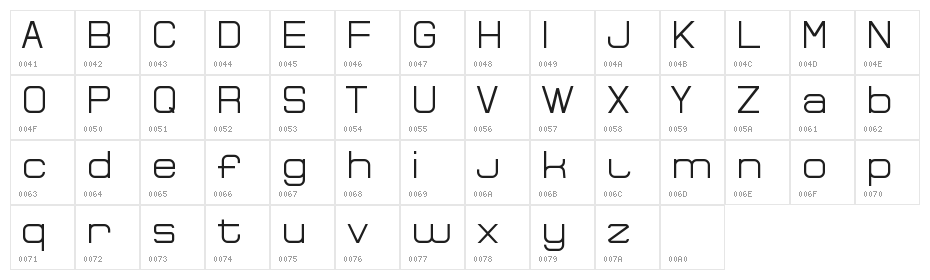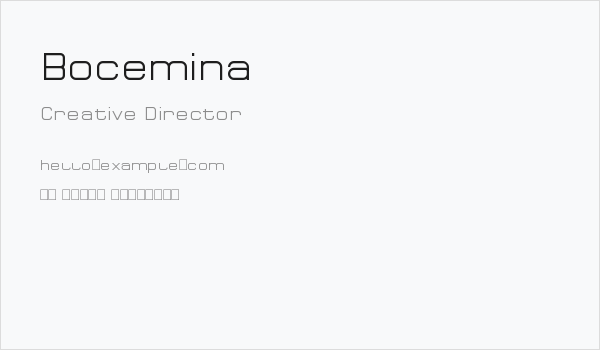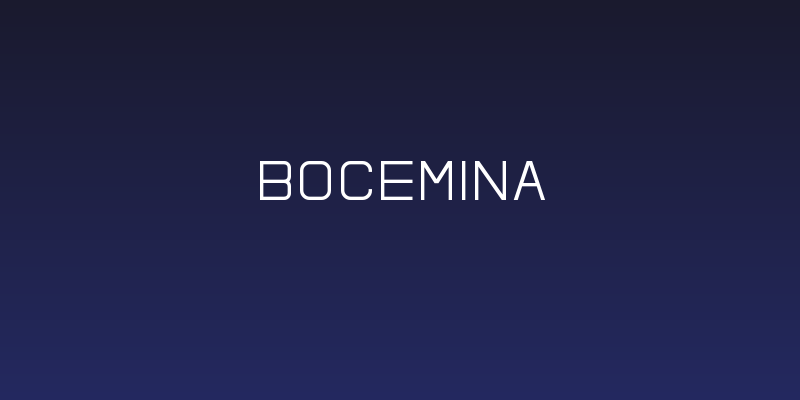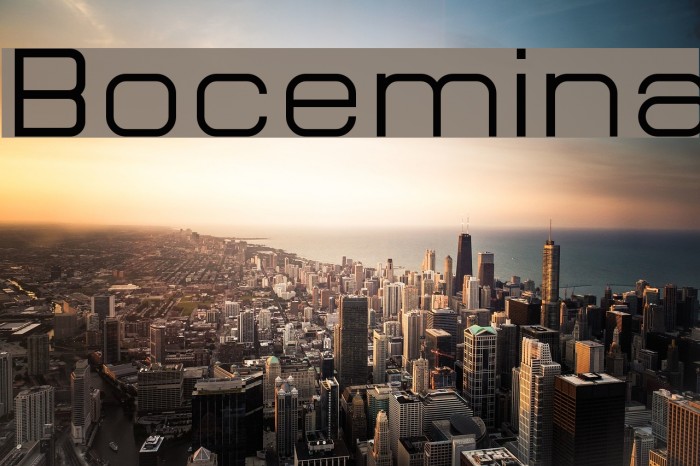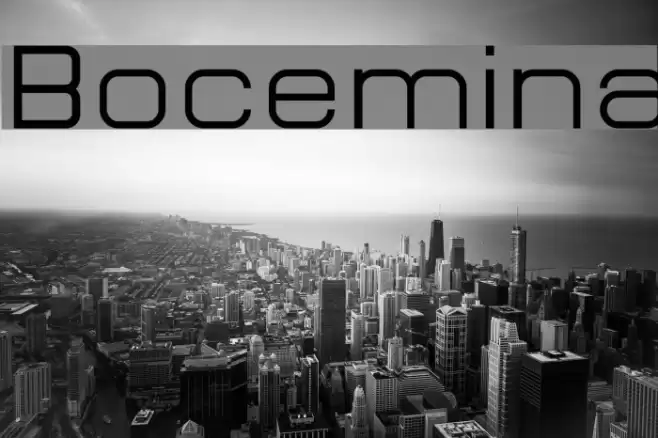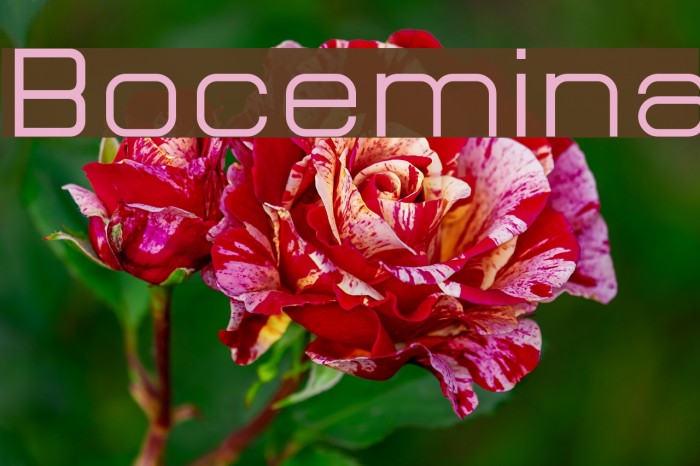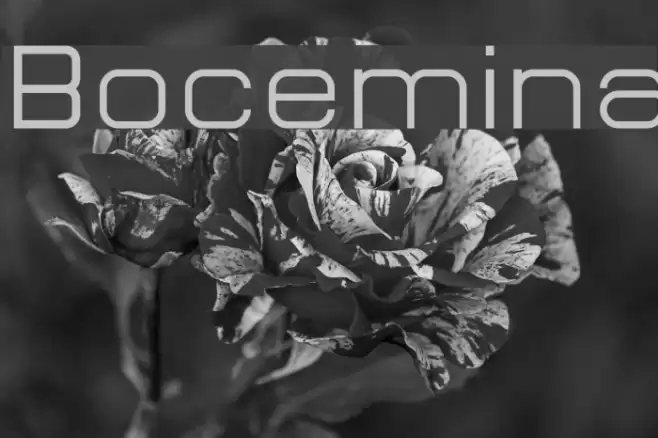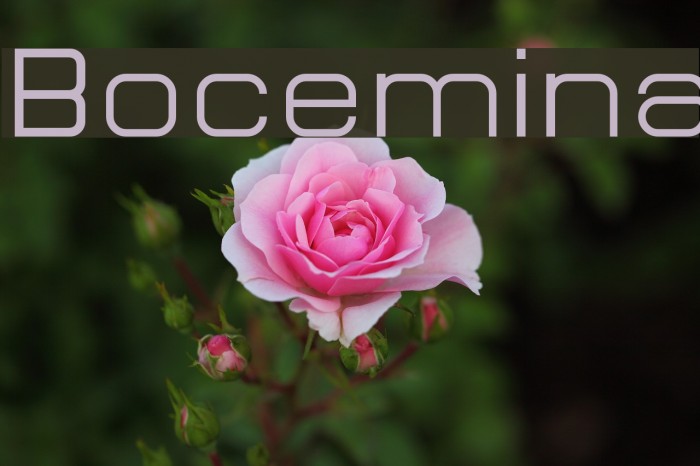
Bocemina Font
Bocemina Description
This font features a clean, geometric design with a modern aesthetic. The characters are constructed with precise lines and angles, giving it a technical and futuristic feel. The uppercase and lowercase letters maintain a consistent structure, with rounded edges that soften the overall appearance. The numerals and special characters follow the same design principles, ensuring uniformity across all glyphs. This font is highly legible and versatile, making it suitable for a variety of applications where clarity and style are paramount.
| Use Case | Headlines, Logos, Digital Interfaces |
| Proposed Projects | Ideal for technology branding, digital interfaces, modern advertising, and editorial design. |